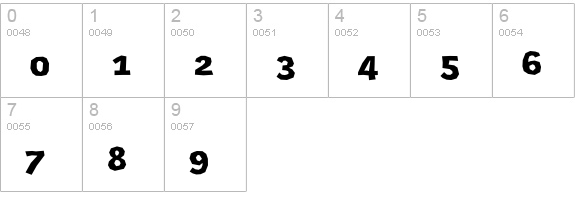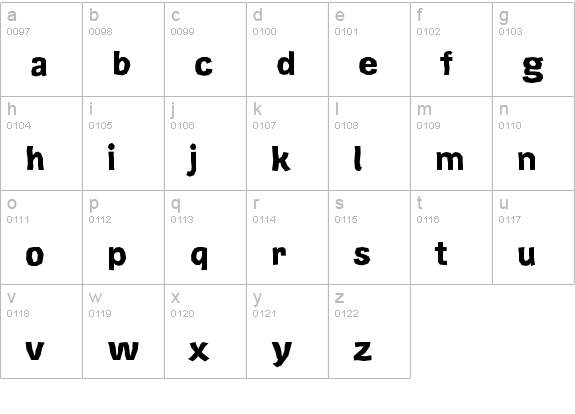
Rekord-Black Font Details
Rekord-Black is a maximum-weight, dramatic variant in the Rekord typeface family \xE2\x80\x94 well suited to maximum-impact headlines, posters, and packaging.
Introducing Rekord-Black, a stunning font that effortlessly combines elegance and boldness. With its sleek and modern design, Rekord-Black is perfect for creating eye-catching headlines, stylish logos, and captivating advertisements. This magnificent typeface boasts a unique blend of sharp edges and smooth curves, giving your projects a contemporary and sophisticated look. Its strong presence commands attention and leaves a lasting impression on your audience. But what makes Rekord-Black even more appealing is the fact that it is completely free. Yes, you read that right! This exceptional font is freely available to download at FontsMarket.com, allowing you to elevate your designs without breaking the bank. With Rekord-Black, you have the freedom to unleash your creativity without any limitations. Its versatility allows it to shine in a variety of design projects, from corporate branding to editorial layouts and everything in between. This font's extensive character set ensures that you have all the tools you need to make your text stand out. Each letter, number, and symbol has been meticulously crafted, resulting in a harmonious and cohesive typeface that exudes professionalism. Whether you're a seasoned designer or just starting out, Rekord-Black is a must-have in your font collection. Its timeless appeal and contemporary style make it a versatile choice for any project. So why wait? Download Rekord-Black for free at FontsMarket.com and unlock the potential of this extraordinary font. Elevate your designs and make a lasting impression with Rekord-Black.